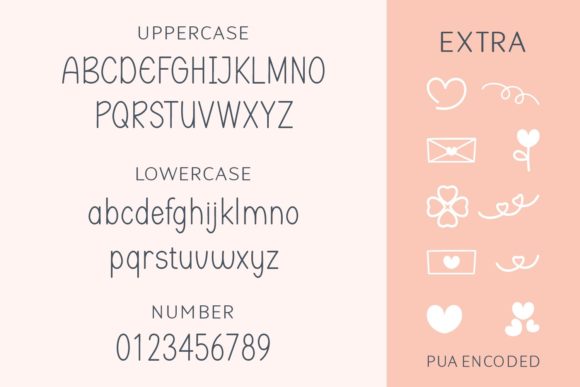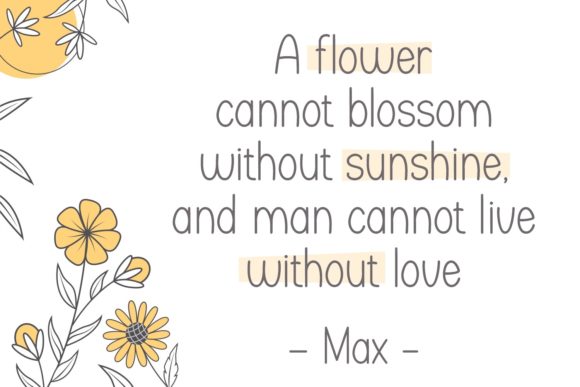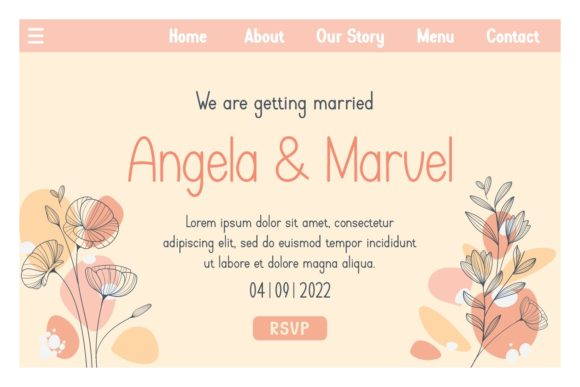
Introduction to Kinami Font
Have you ever been stuck in front of your computer, staring at a blank screen, desperate for inspiration to strike? We’ve all been there. As designers, we crave that perfect combination of creativity and style to bring our projects to life. For those seeking a touch of whimsy and charm, the Kinami Font is here to save the day.
This adorable handwritten font is more than just a pretty face – it’s a valuable design resource that can elevate your creative project with its high-quality aesthetic. Whether you’re working on a children’s book, a wedding invitation, or a social media campaign, the Kinami Font is sure to bring a smile to your audience’s face. And the best part? It’s available for a free download, complete with a transparent background to make it seamlessly integrate into any design.
With its cute, friendly, and sweet personality, the Kinami Font is a must-have for any designer looking to add a refreshing touch to their work.
Key Features of Kinami Font
- Features a unique and modern design, making it an excellent addition to any design resource
- Designed to be highly legible and visually appealing, even at small font sizes
Honest Review: Kinami Font
I recently had the chance to work with the Kinami Font, and I must say it’s a lovely addition to any creative project. As a designer, I’m always on the lookout for high-quality design resources that can elevate my work, and the Kinami Font definitely fits the bill.
Here are some of the things I like about the Kinami Font:
- ✨ High-quality typography: The Kinami Font is crisp and clear, making it perfect for both digital and print projects.
- ✨ Transparent background: This makes it easy to work with and allows for seamless integration with other design elements.
However, I do have a few criticisms:
- ⚠️ Limited font styles: While the Kinami Font is well-designed, it’s limited to a single style, which may not be ideal for projects that require a more diverse font selection.
- ⚠️ Not ideal for large text: While the Kinami Font is great for smaller text, it may not be the best choice for large text, as it can become difficult to read.
Overall, I’m impressed with the Kinami Font and would definitely consider using it for future creative projects. Its high-quality design and transparent background make it a valuable addition to any design resource library.
Kinami Font is a high-quality design resource perfect for creative projects. This versatile font offers a unique style that can elevate any design. With a transparent background, it’s easy to use in various design software.
Kinami Font is perfect for:
- Branding and logo design.
- Marketing materials, such as brochures and flyers.
- Web design and development.